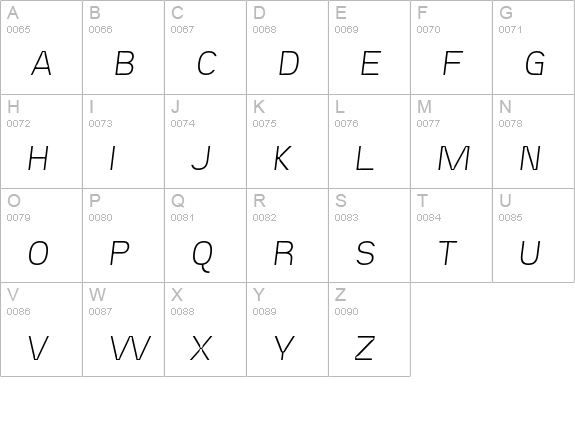
Eunuverse-Italic Font Details
Eunuverse-Italic is a distinctive, italic variant in the Eunuverse typeface family \xE2\x80\x94 well suited to design and typography projects.
Introducing Eunuverse-Italic, a beautifully crafted font that exudes elegance and sophistication. Its sleek and slanted design gives off a modern and stylish vibe, making it perfect for a variety of design projects. This italic typeface adds a touch of flair and personality to any text, making it stand out from the crowd. What's even better is that Eunuverse-Italic is available for free download at FontsMarket.com! You can easily enhance your designs with this stunning font without breaking the bank. Whether you're working on branding materials, invitations, or website design, Eunuverse-Italic is sure to elevate your project to the next level. Don't miss out on the opportunity to add this versatile and eye-catching font to your collection today!